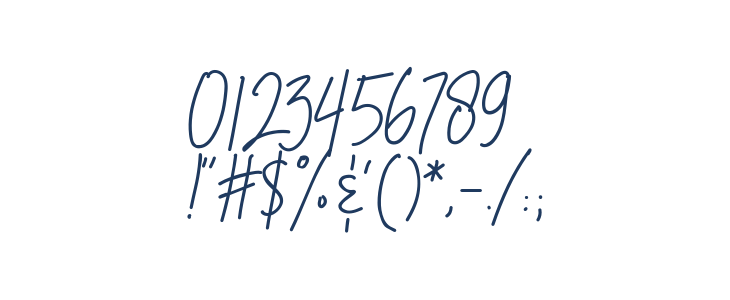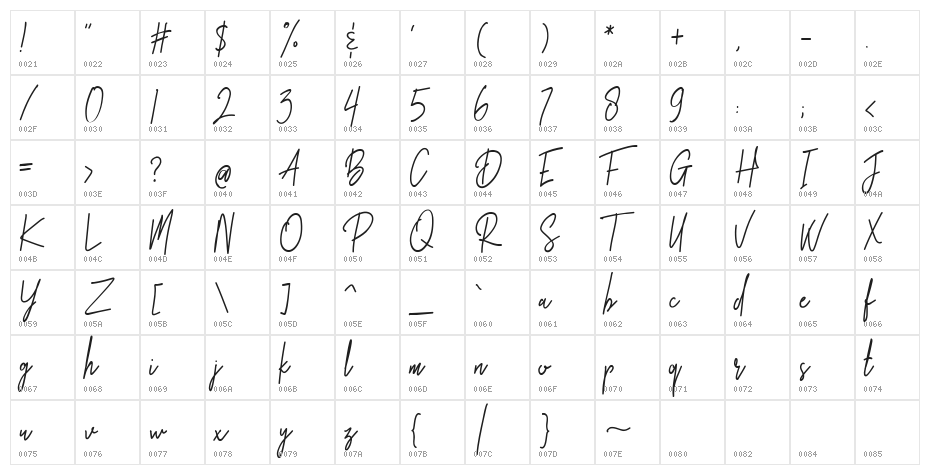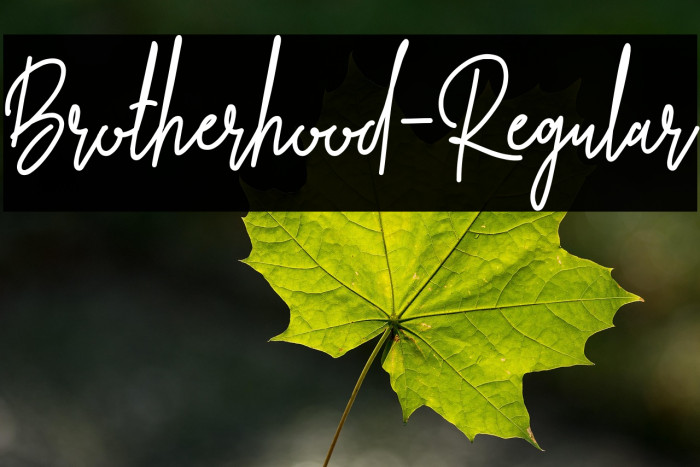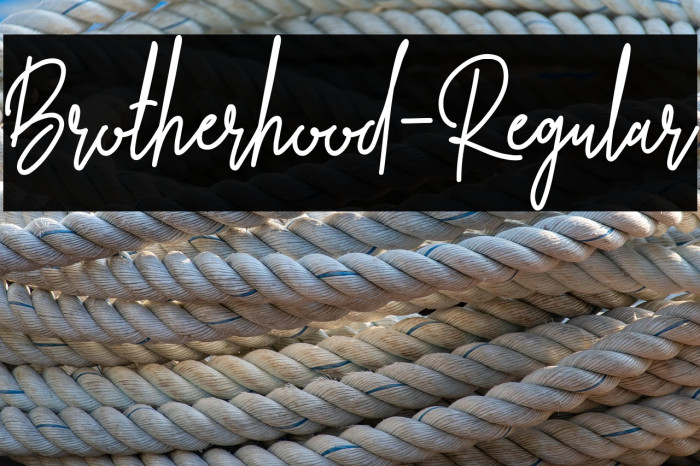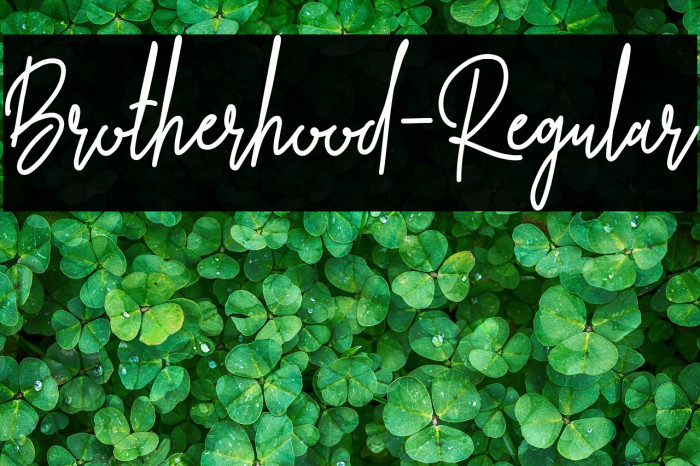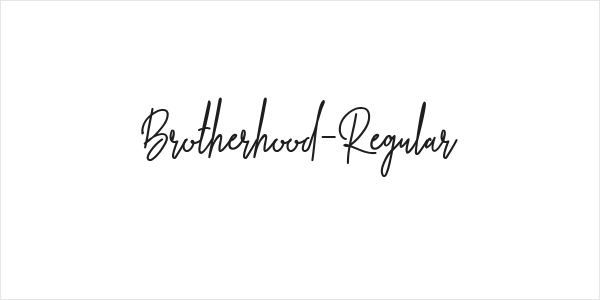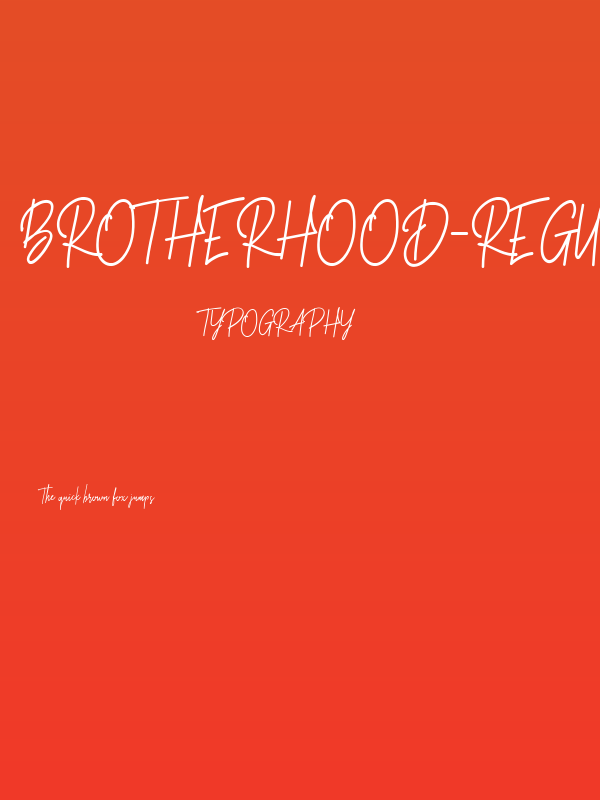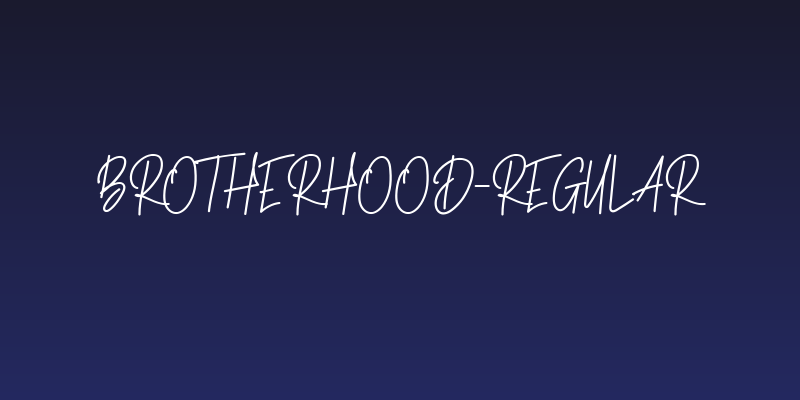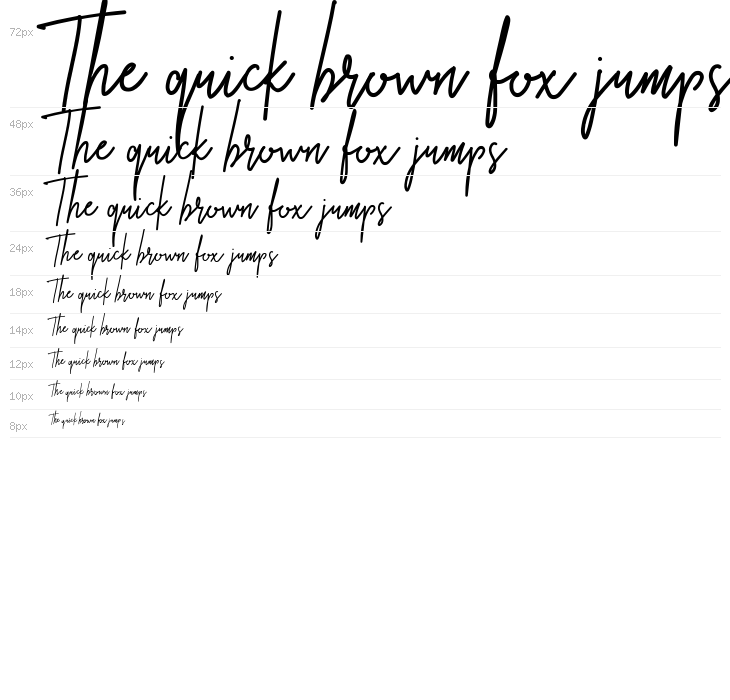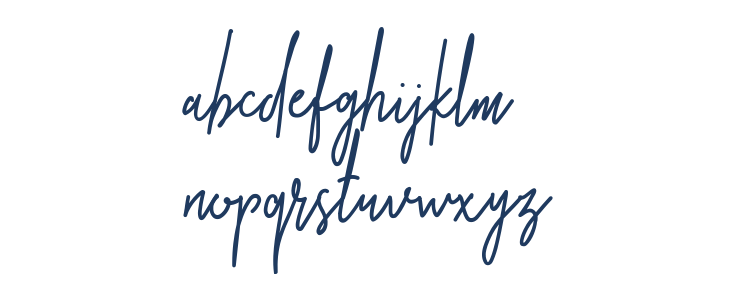
Brotherhood-Regular Font
Brotherhood-Regular Description
This font features a dynamic and expressive handwritten style, characterized by its fluid and elongated letterforms. The uppercase letters are tall and narrow, with a slight slant that adds a sense of movement and energy. The lowercase letters maintain a consistent flow, with smooth curves and a natural, cursive appearance. Numbers and special characters are crafted with the same attention to detail, ensuring a cohesive look across all elements. The overall design is both elegant and casual, making it suitable for a variety of creative applications.